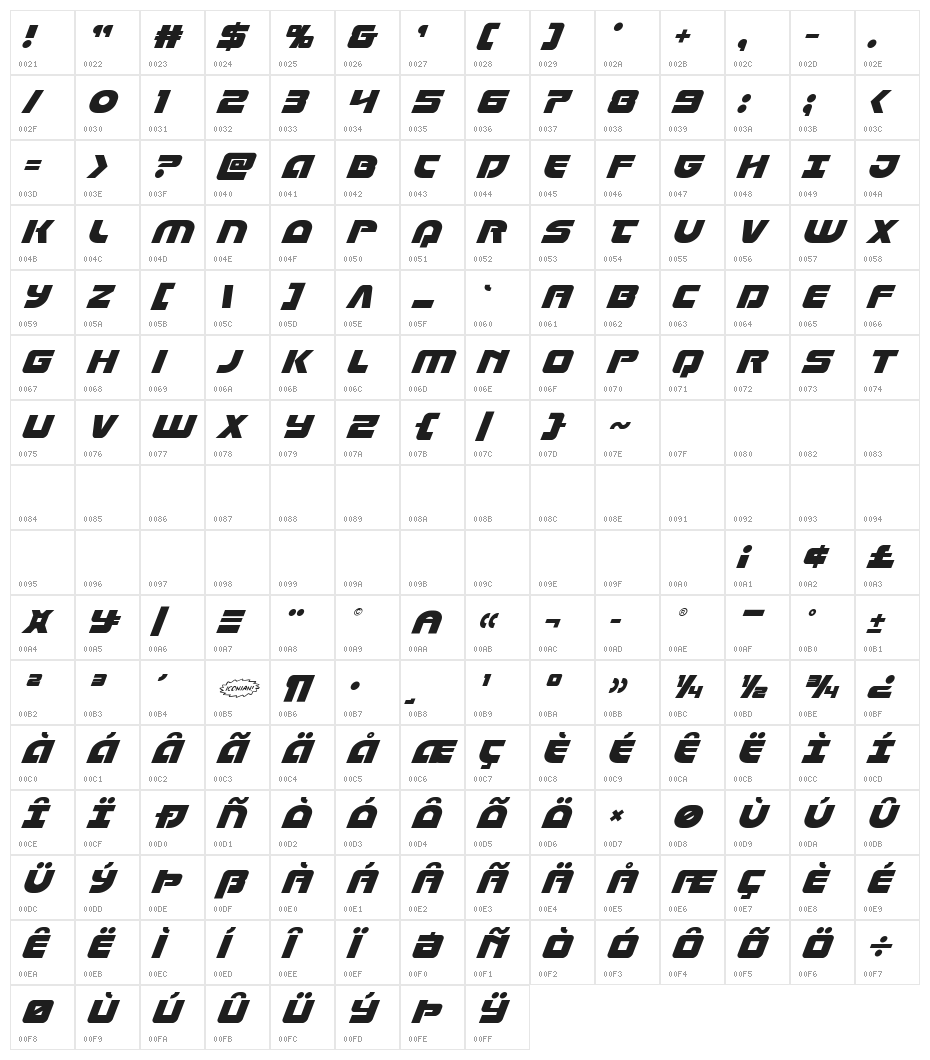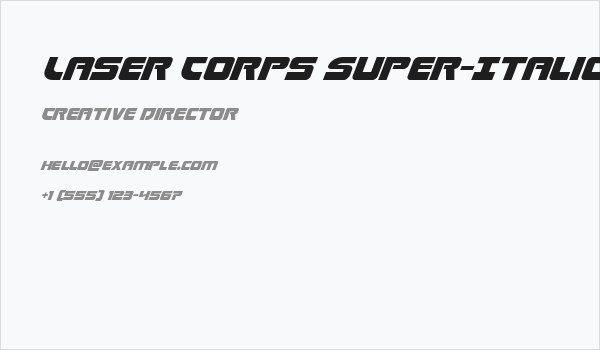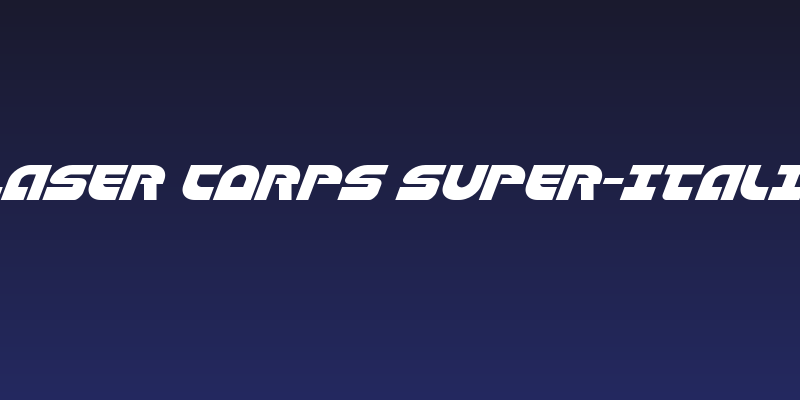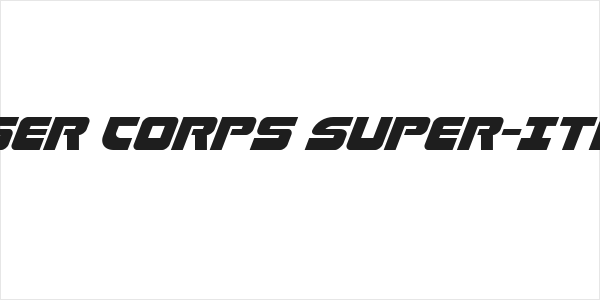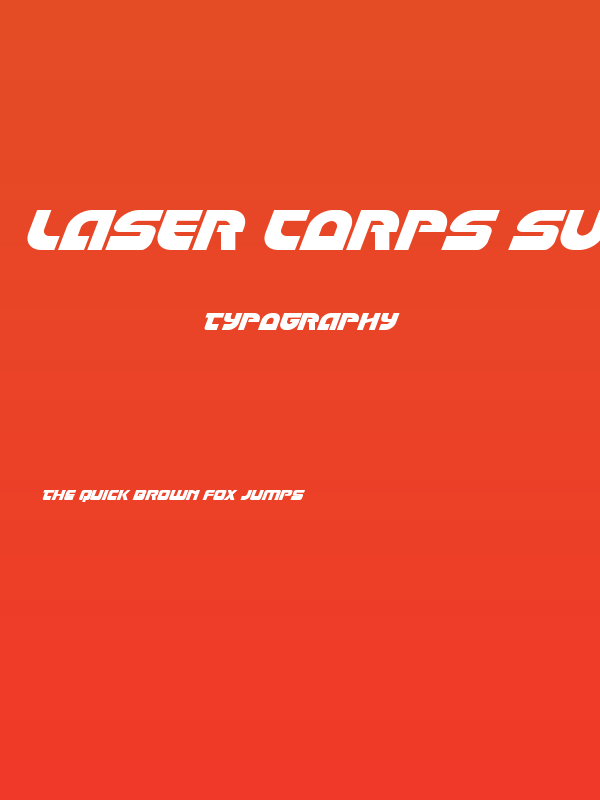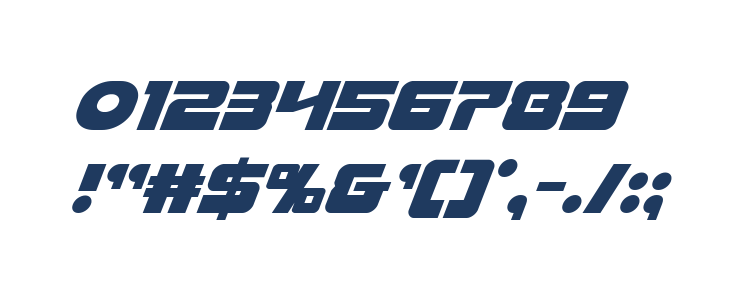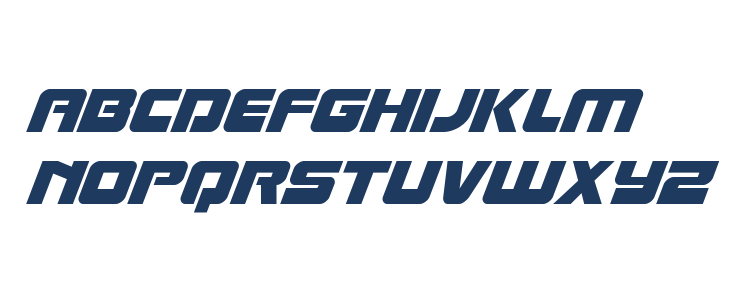
Laser Corps Super-Italic Font
Laser Corps Super-Italic Description
This font features a bold and dynamic style with a futuristic and angular design. The characters are italicized, giving a sense of motion and speed. The strokes are thick and consistent, providing a strong visual impact. The uppercase and lowercase letters maintain a uniform width, contributing to a cohesive appearance. The numbers and special characters follow the same design principles, ensuring versatility across different uses. The overall look is modern and sleek, making it suitable for projects that require a bold statement.
| Proposed Projects | Ideal for sci-fi themed projects, video game titles, tech branding, and dynamic posters. |